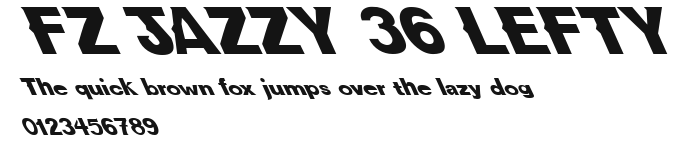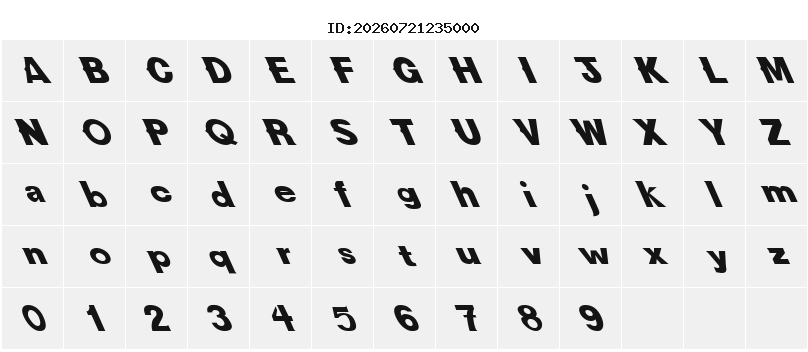
• Font Name: FZ JAZZY 36 LEFTY
About FZ JAZZY 36 LEFTY.ttf
FZ JAZZY 36 LEFTY.ttf is a modern, elegant sans-serif font designed for ultimate readability and visual harmony. Perfect for branding, headlines, web design, and print materials.